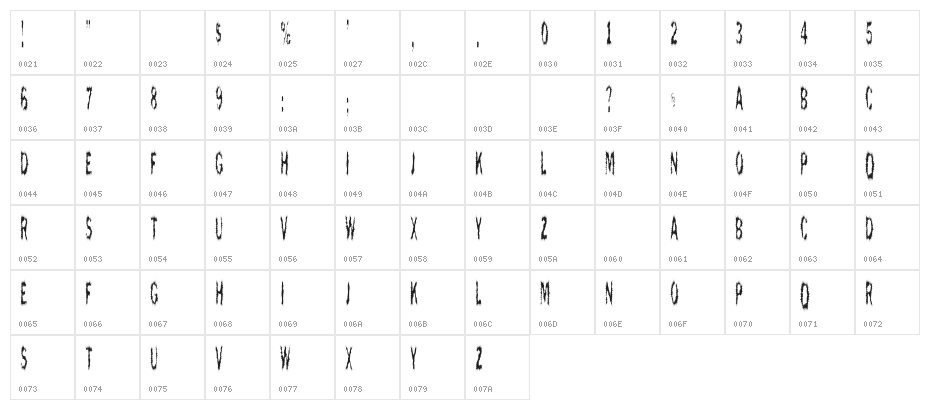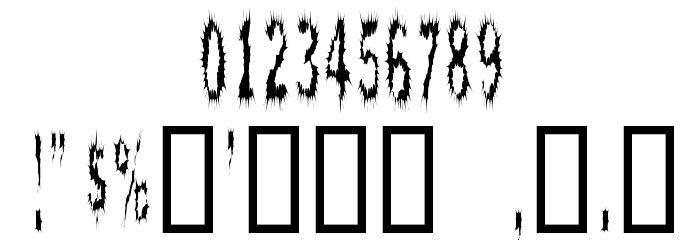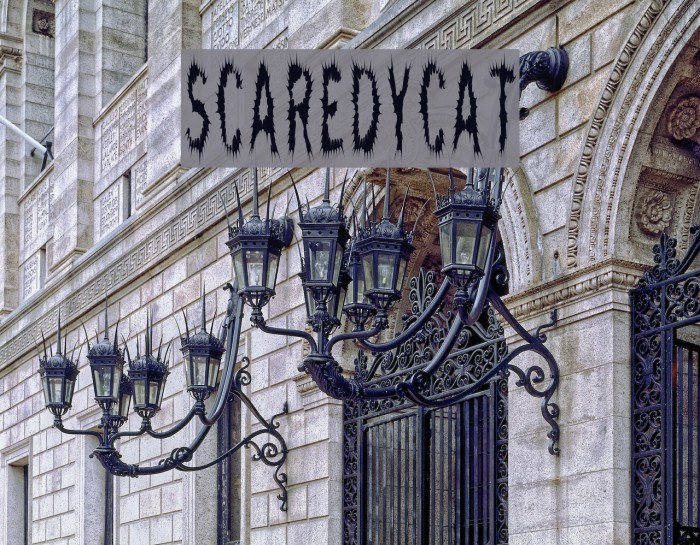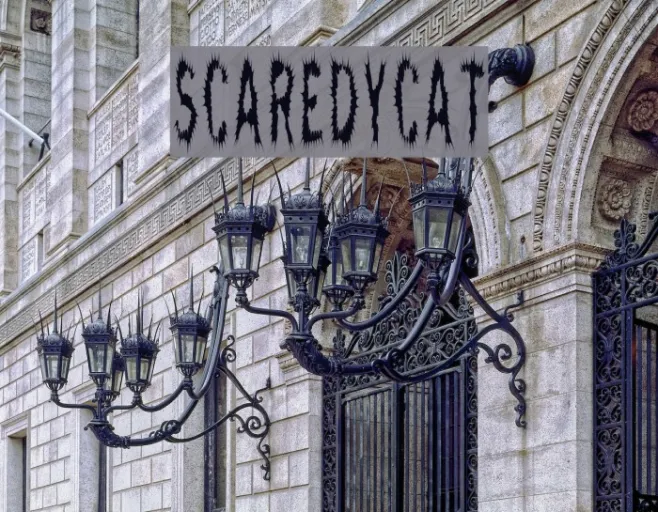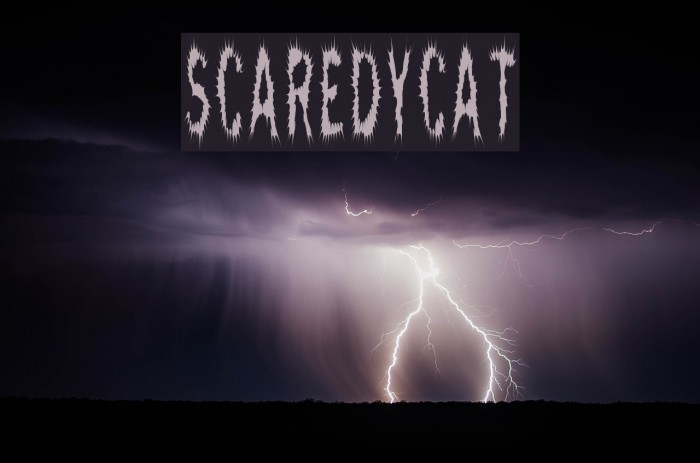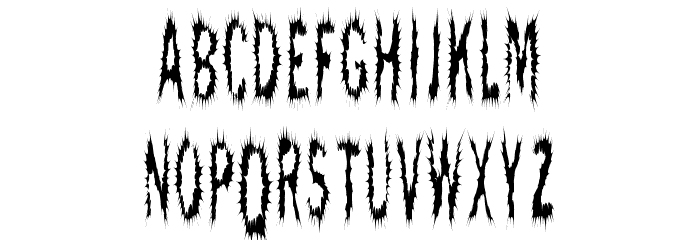
ScaredyCat Font
ScaredyCat Description
This font features a jagged, spiky design that evokes a sense of fear and unease, making it perfect for Halloween-themed projects or anything requiring a spooky aesthetic. The characters are irregularly shaped, with sharp edges and varying thickness, giving them a chaotic and unsettling appearance. The uppercase and lowercase letters maintain this eerie style, while the numbers and special characters follow suit, ensuring a consistent look across all text elements. The font's unique style is both eye-catching and memorable, making it ideal for creative projects that aim to stand out.